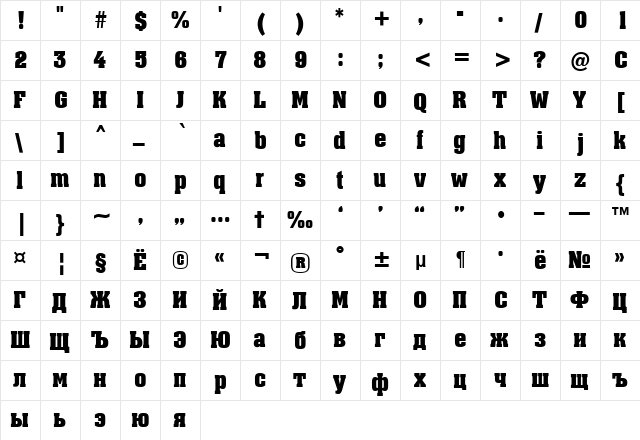
a_AssuanNr Bold
Design Context for a_AssuanNr Typeface
a_AssuanNr offers clean, dependable letterforms without strong stylistic allegiance, making it a practical choice for designers who need flexibility. Its bold stroke weight gives it real presence on the page.